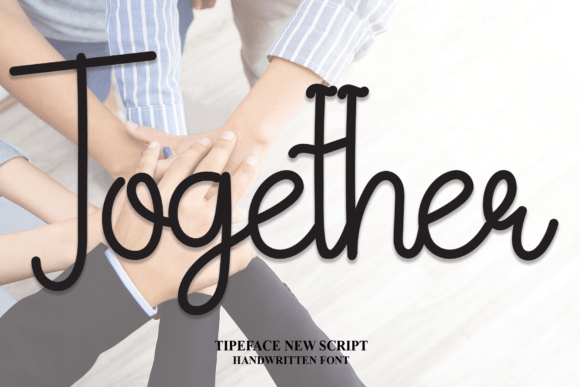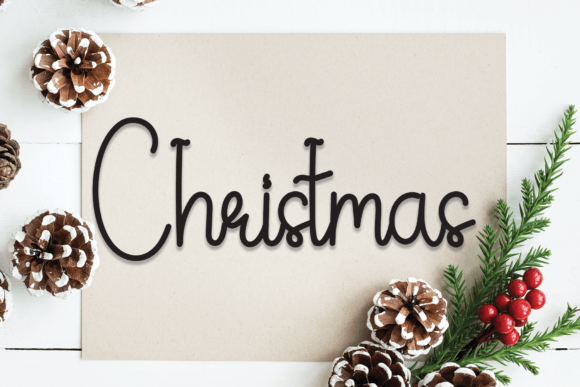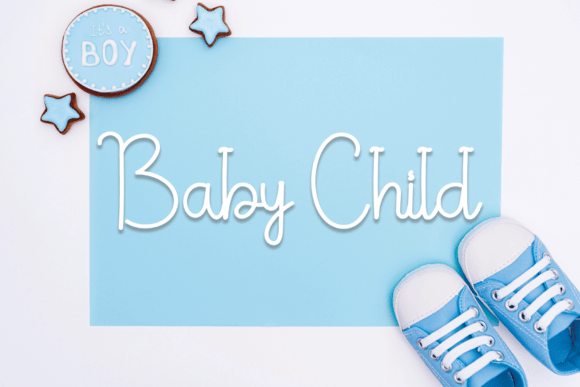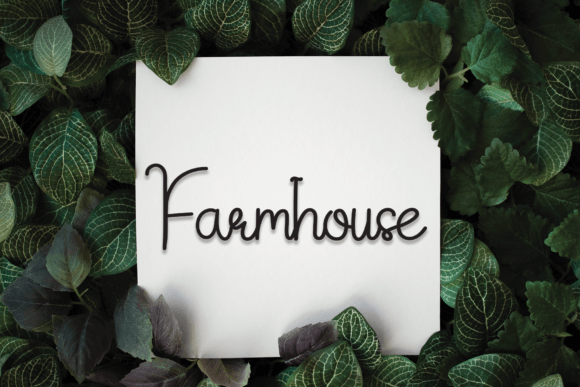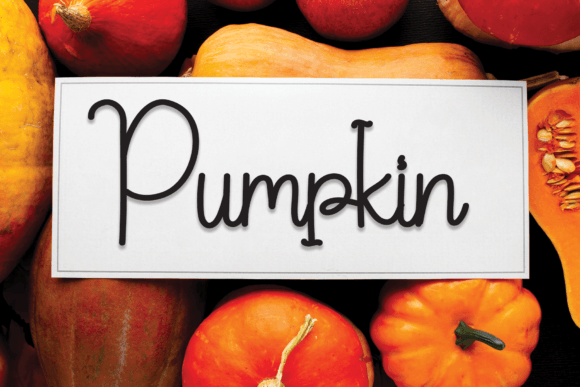
Together Font
About Together Font
The Together font is a cheerful and approachable handwritten typeface designed to bring warmth, personality, and authenticity to your creative projects. Its casual charm and clean strokes make it ideal for both personal and professional use. Whether you’re designing for digital screens or printed pages, Together adds a soft, human touch that feels inviting and sincere.
This font was made for creators who value simplicity without sacrificing character. Its smooth curves and natural flow mirror true handwriting, giving your words an expressive and friendly voice.
Clean, Simple, and Adaptable
Together is more than just a handwritten font—it’s a versatile design tool. With well-spaced letters and consistent line weight, it ensures legibility across various sizes and platforms. The font is playful yet neat, striking a perfect balance between creativity and usability.
You can use the Together font for a wide variety of projects, including:
• Greeting cards and invitations
• Handmade product labels and tags
• Personal blog titles or Instagram graphics
• Craft and DIY printables
• Quotes, posters, and promotional designs
Because of its simplicity, it complements other fonts beautifully and can easily be used as either a main headline or a supporting element in your design layout.
Designed for Creative Freedom
One of the most appealing features of Together is its flexibility. It’s suitable for both lighthearted and meaningful projects. You can apply it to holiday cards, educational materials, inspirational messages, and more. Its friendly tone allows you to build designs that feel approachable and authentic.
Together also pairs well with minimalist graphics and colorful visuals, giving your text enough contrast to shine without overwhelming the composition.
Add Heart to Every Design
If you’re searching for a handwritten font that feels genuine, versatile, and easy to work with, the Together font is an excellent choice. Its natural style enhances your message and creates a warm connection with your audience.